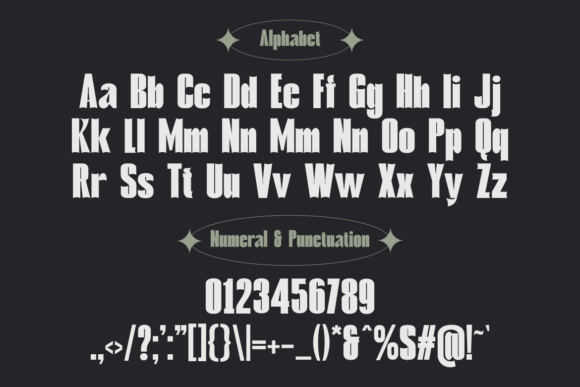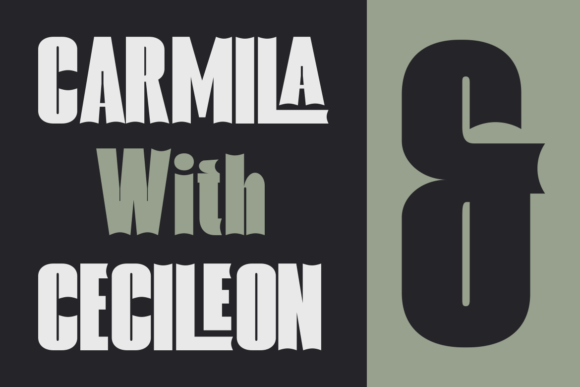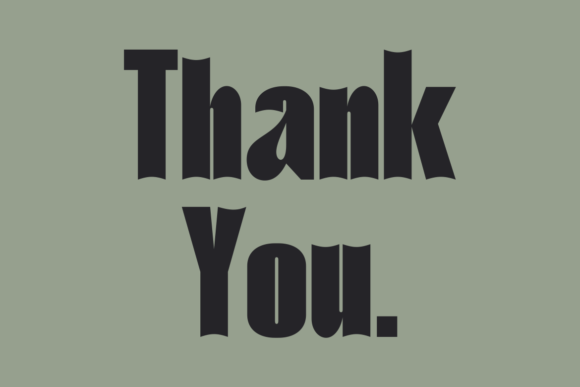
Introduction to Smothis Font
Have you ever been in the middle of a creative project, staring at a blank page, and suddenly, a spark of inspiration hits you? The perfect font pops into your mind, and you can almost see the design come to life. For designers, this moment is a game-changer. It’s the difference between a mediocre design and a truly exceptional one.
That’s where the Smothis Font comes in – a game-changing design resource that can elevate your creative ideas to new heights. With its unique, handcrafted design, this font is a high-quality addition to any designer’s toolkit. Whether you’re working on a personal project or a client brief, Smothis Font is sure to bring a touch of sophistication and style to your work.
Key Features of Smothis Font
- High-quality design resource perfect for creative projects
- Available in 1 style with 2 weights: Regular and Bold
- Designed with a unique, modern aesthetic for a distinctive look
Honest Review: Smothis Font
I recently had the chance to work with the Smothis Font, a free download from a popular design resource. I was excited to incorporate it into my creative project, and I have to say it’s been a great addition.
- ✨ High quality: The Smothis Font has a professional, sleek design that elevates my project’s overall aesthetic.
- ✨ Versatile: I’ve used it for both headings and body text, and it looks great in a variety of contexts.
However, I do have a few minor complaints:
- ⚠️ Limited font sizes: While the font is available in a range of sizes, I found it a bit restrictive in terms of customizing the text size for specific elements.
Overall, I’m impressed with the Smothis Font. Its high quality and versatility make it a valuable addition to any design project. While it may have some limitations, I think it’s worth using for the right creative project.
The Smothis Font is ideal for various design projects, including:
- Business cards and letterheads.
- Brochures and flyers.
- Website design and development.
- Print and digital advertising.